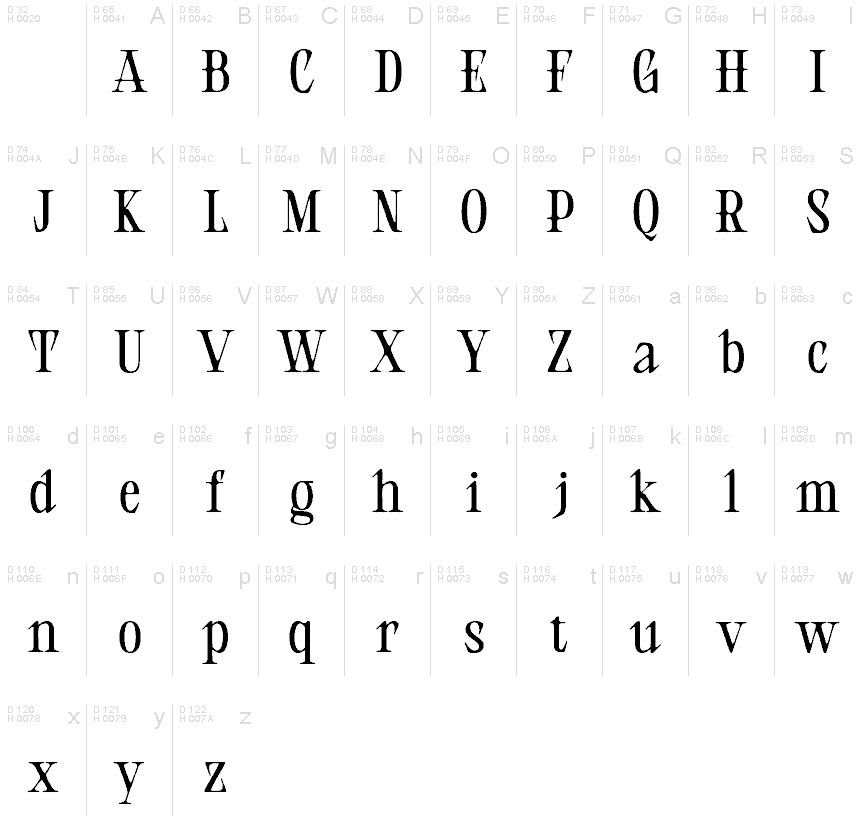
CSFreyaDrawn-Regular Demo
CS Freya Drawn font by Craft Supply Co. is a condensed serif free font that boasts elegant and refined text characters. The family is not only sophisticated, but also traditional holds a formal appearance.
Use it to create headers, page or presentation titles, publishing items covers, books and magazine designs, logotypes of all kinds, corporate identities and branding, ads and posters. Use in packaging design such as product labels or simply its back description fine print.